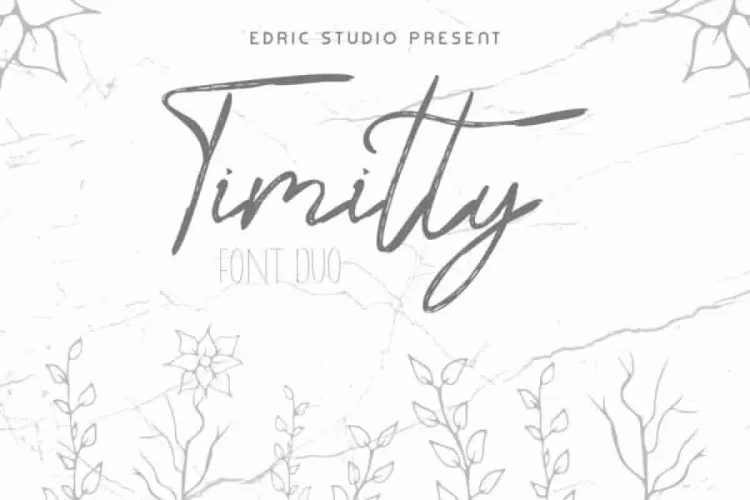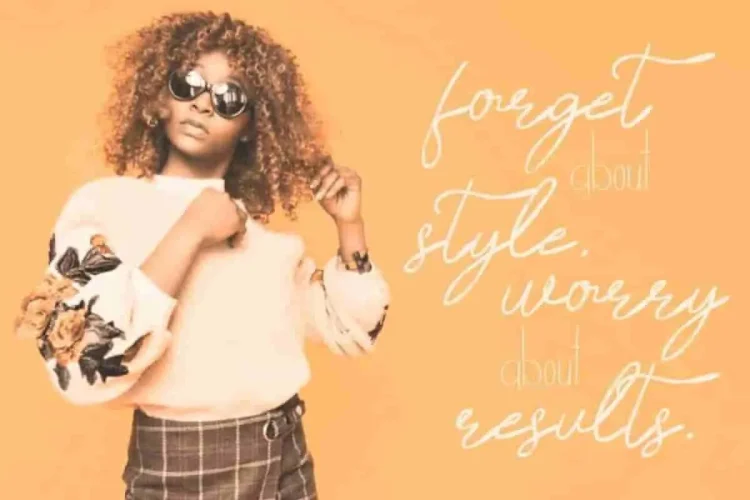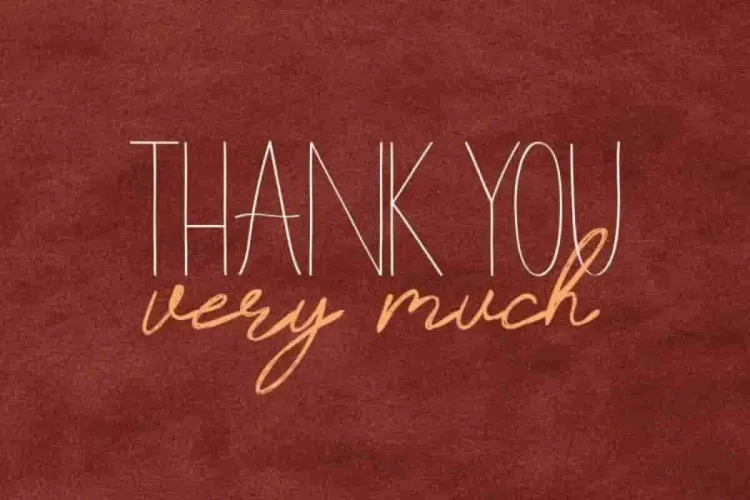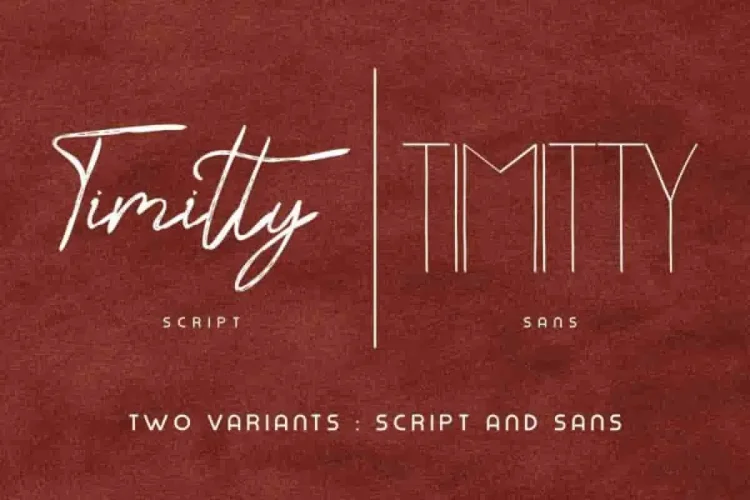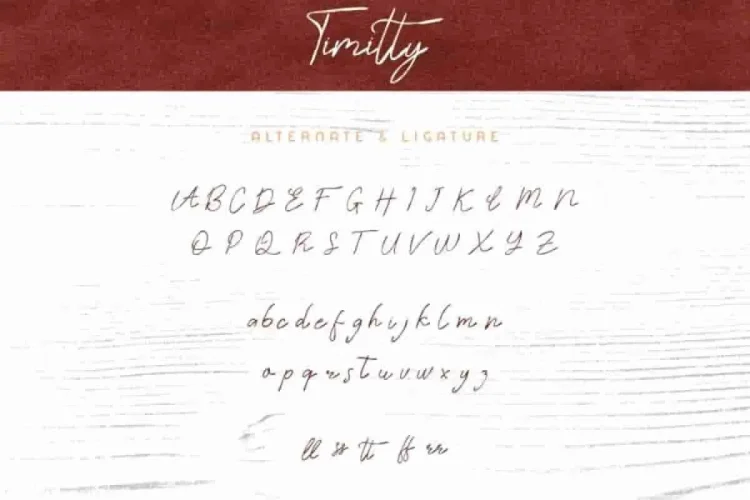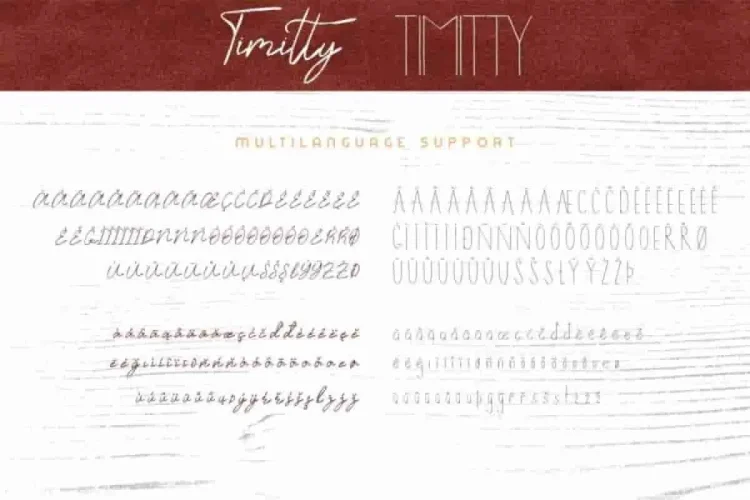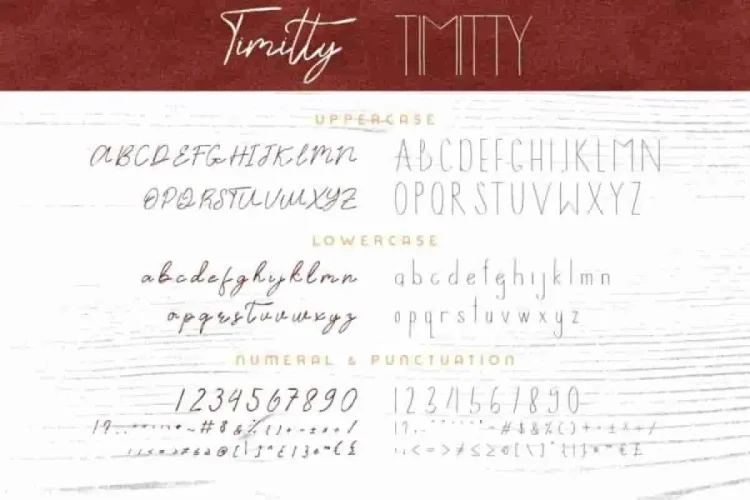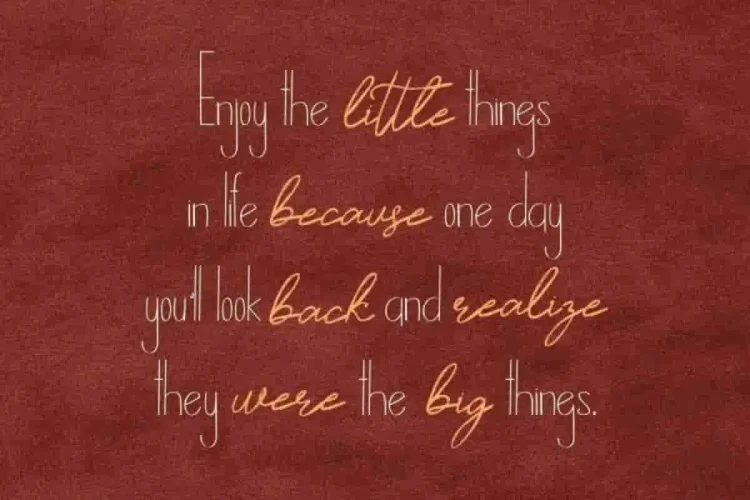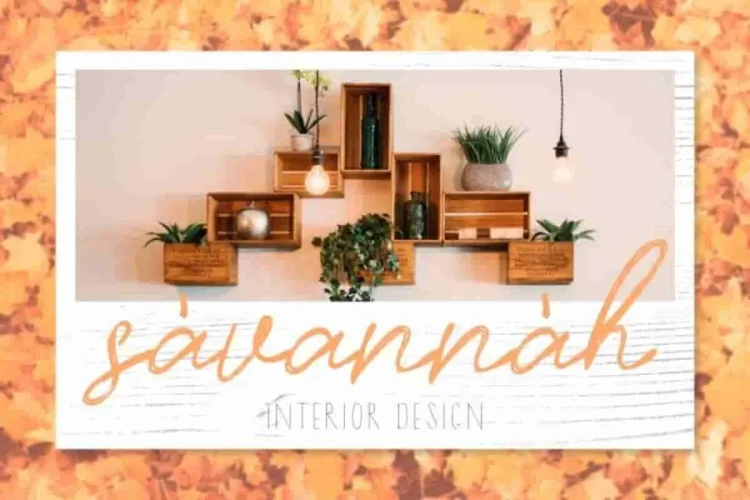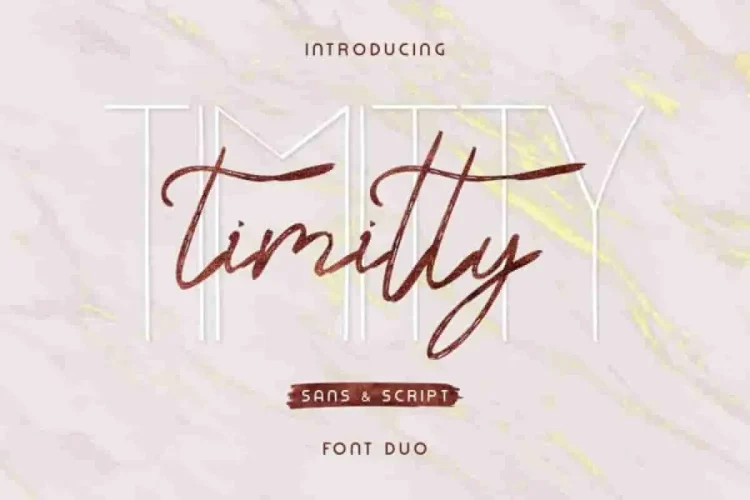
Timitty Sans & Script Font Duo
Please welcome Timitty Font Duo, the new font family from EdricStudio.
Timitty Font Duo is a two-in-one font family that offers two distinct styles: a bold display sans and an elegant calligraphy script. We created this font in Bandung in 2019. It blends modern style with timeless charm.
Timitty Font Duo brings elegance and versatility,  making it ideal for many industries such as industries : law firm, gardening, makeup artist, musician, florist, architect, real estate, interior design, cafe, etc.